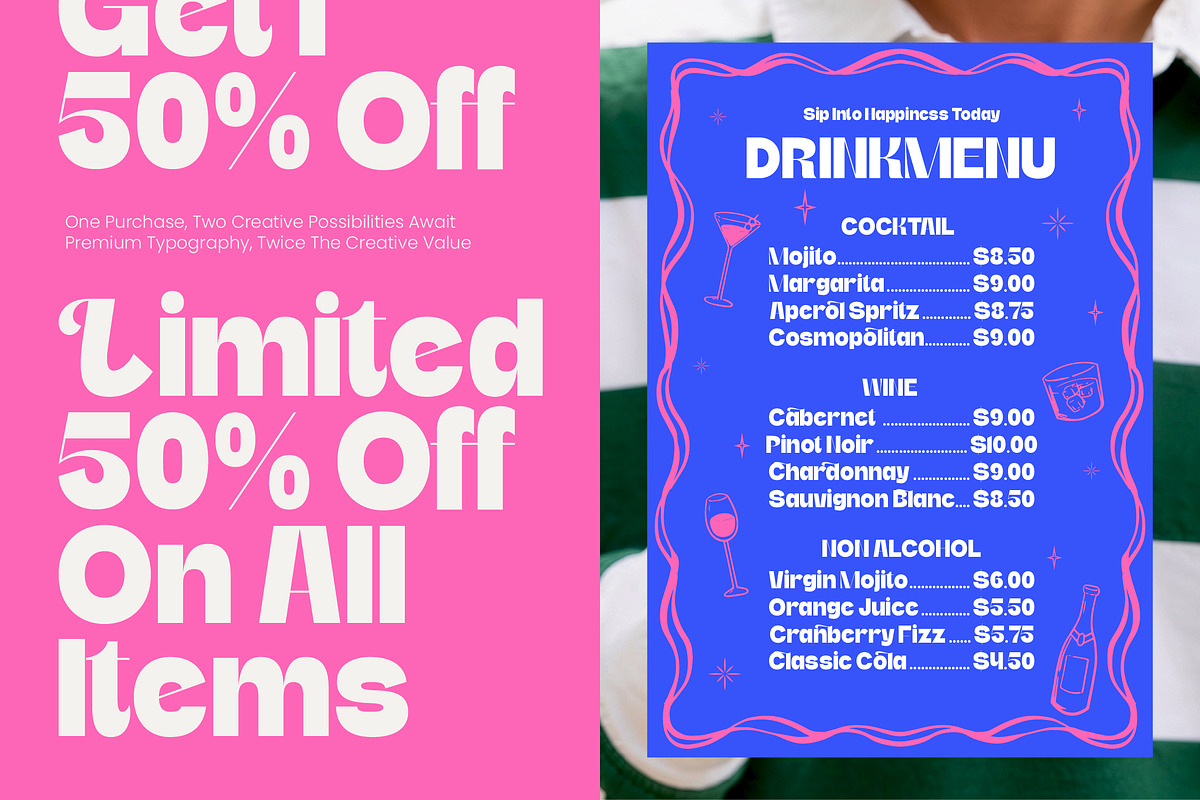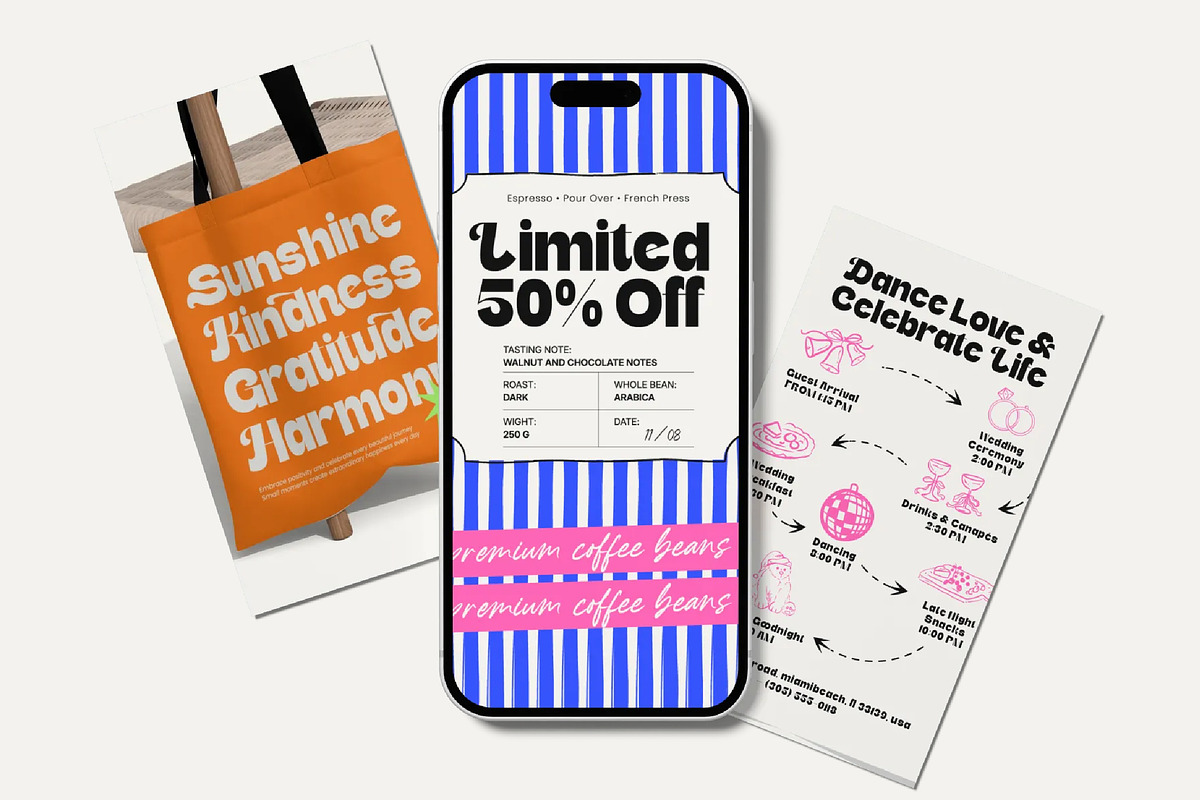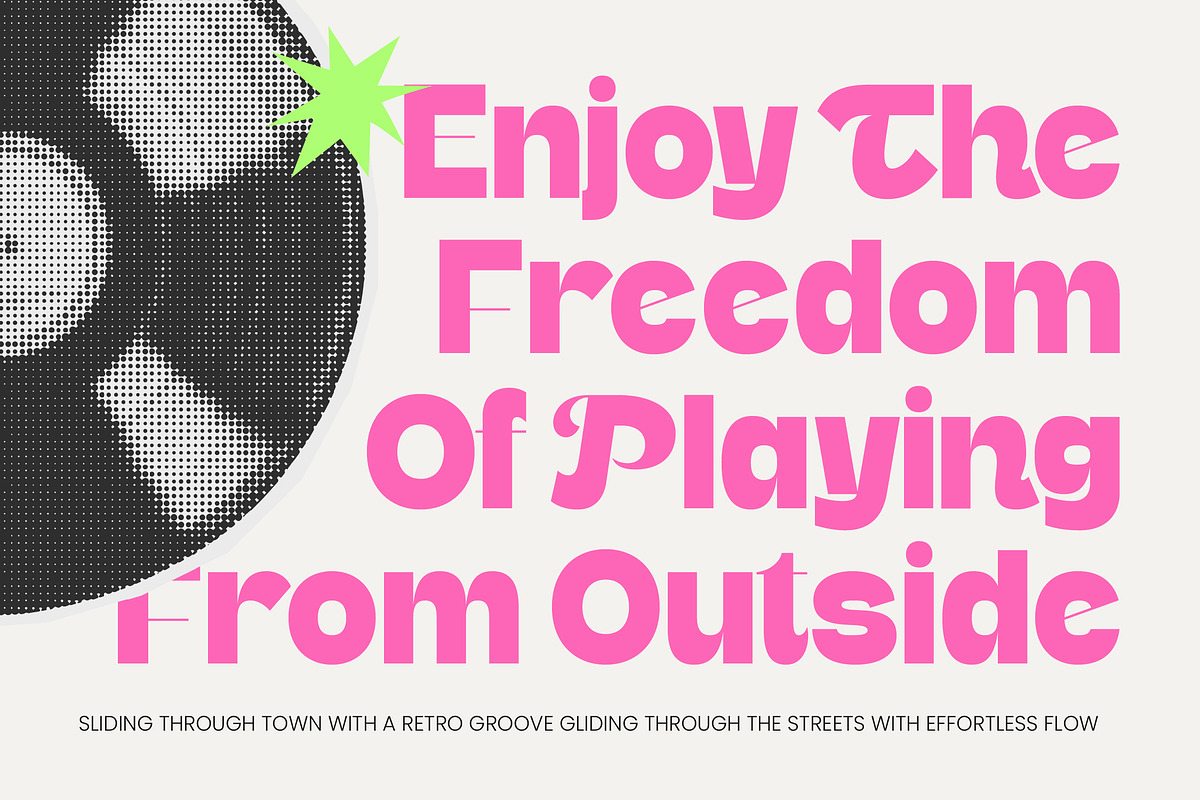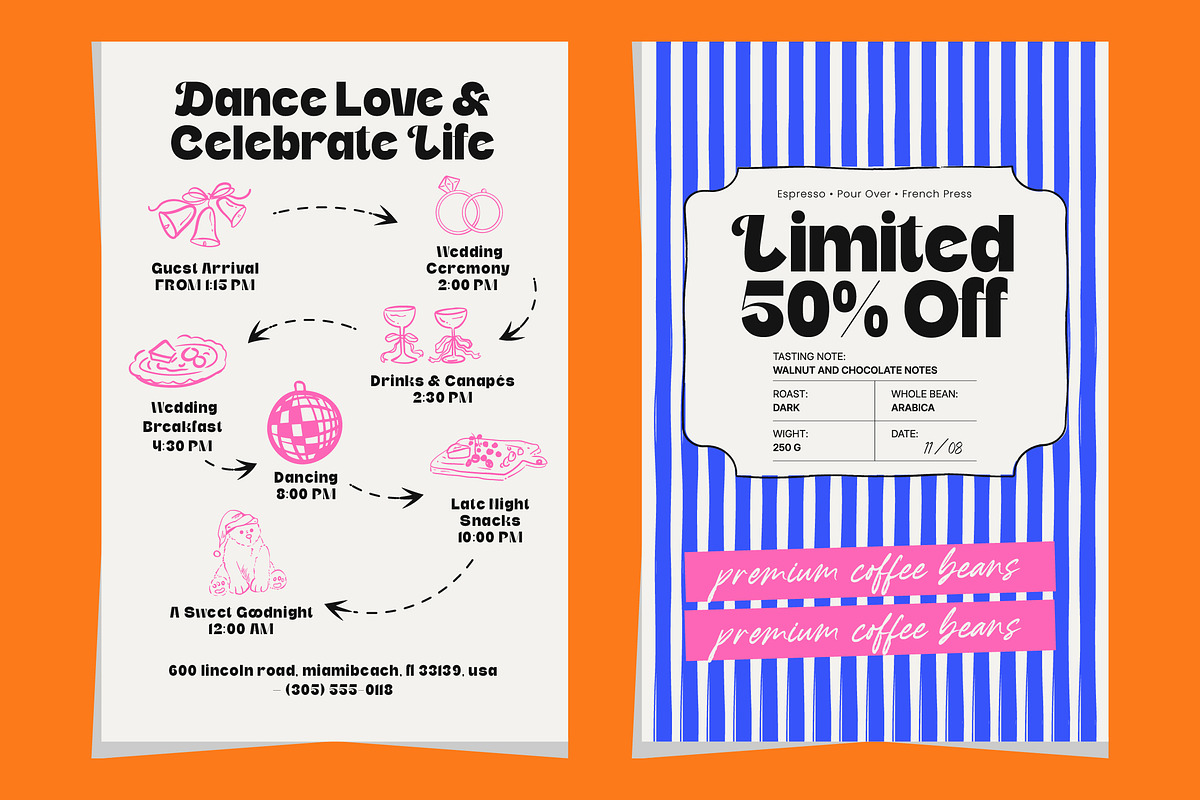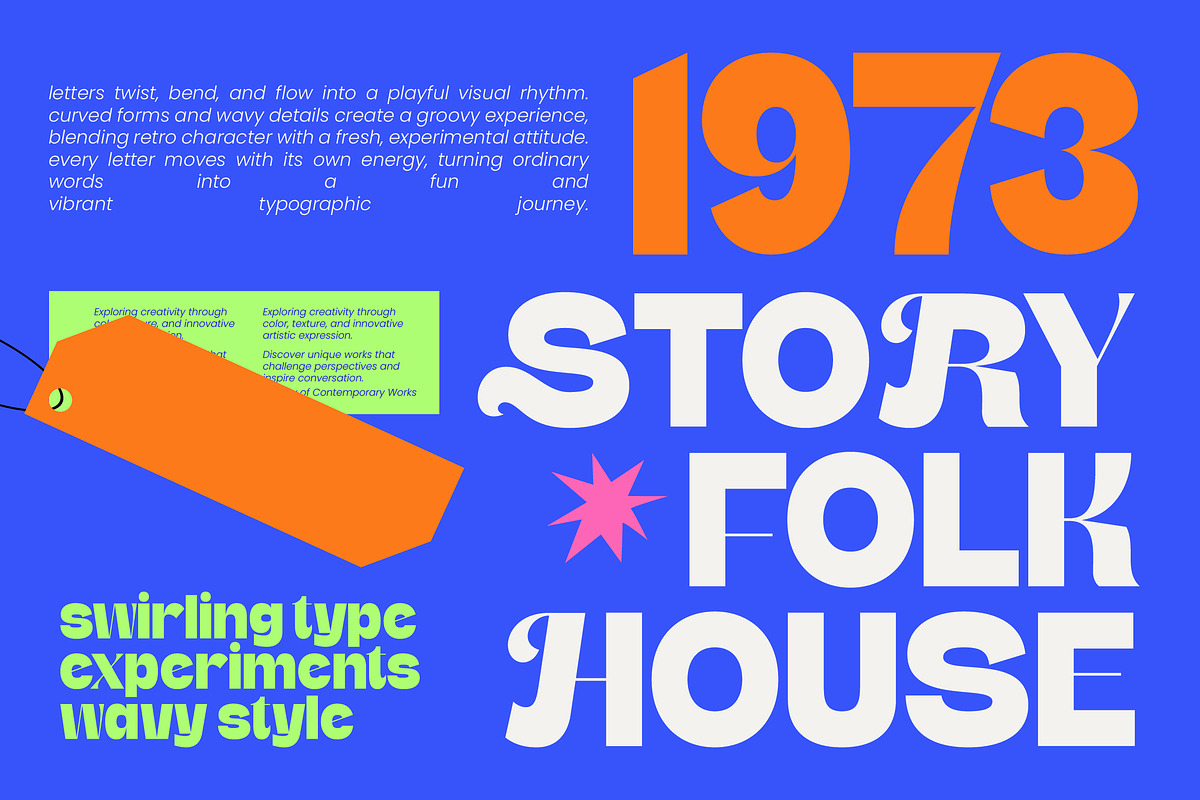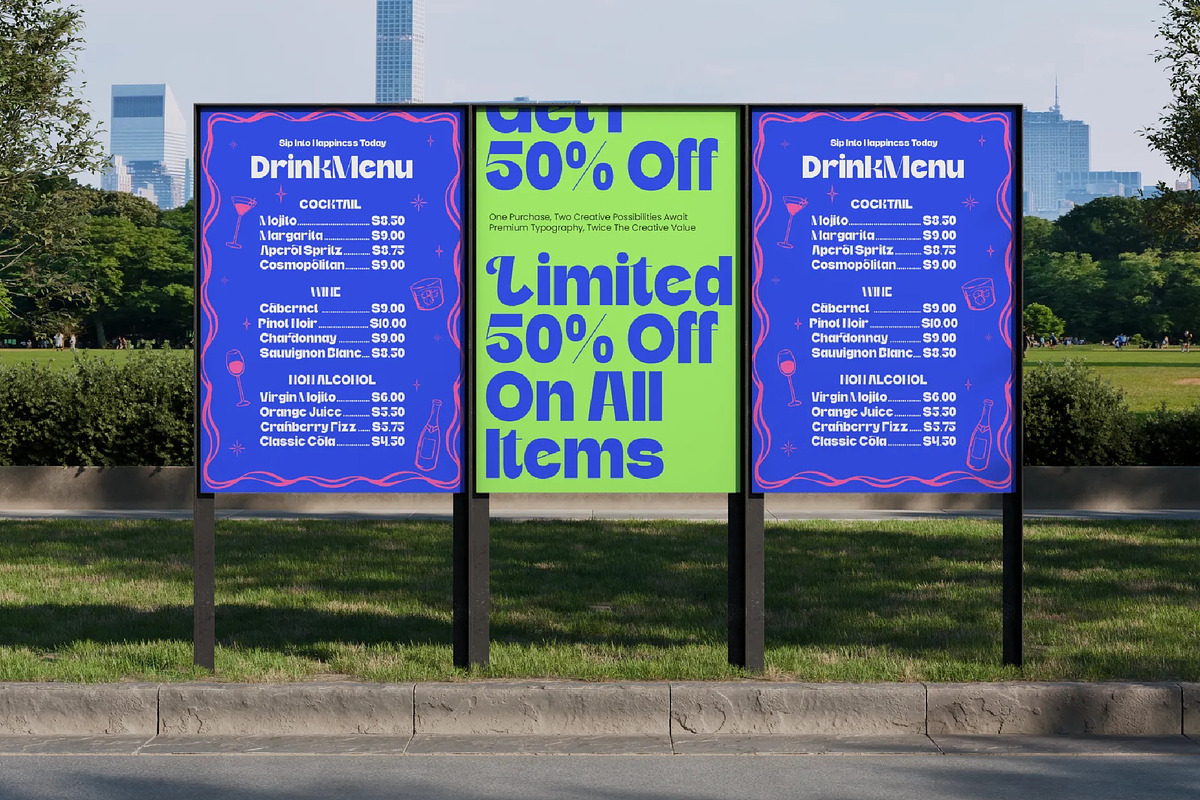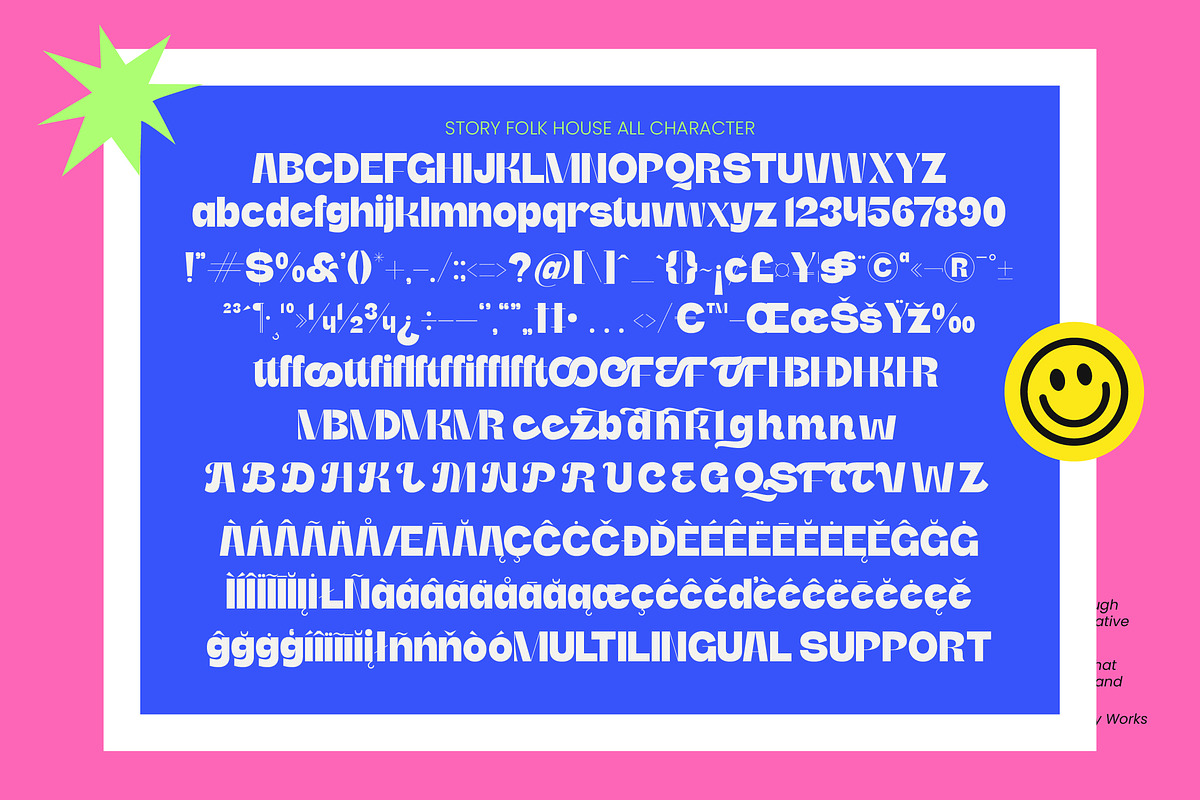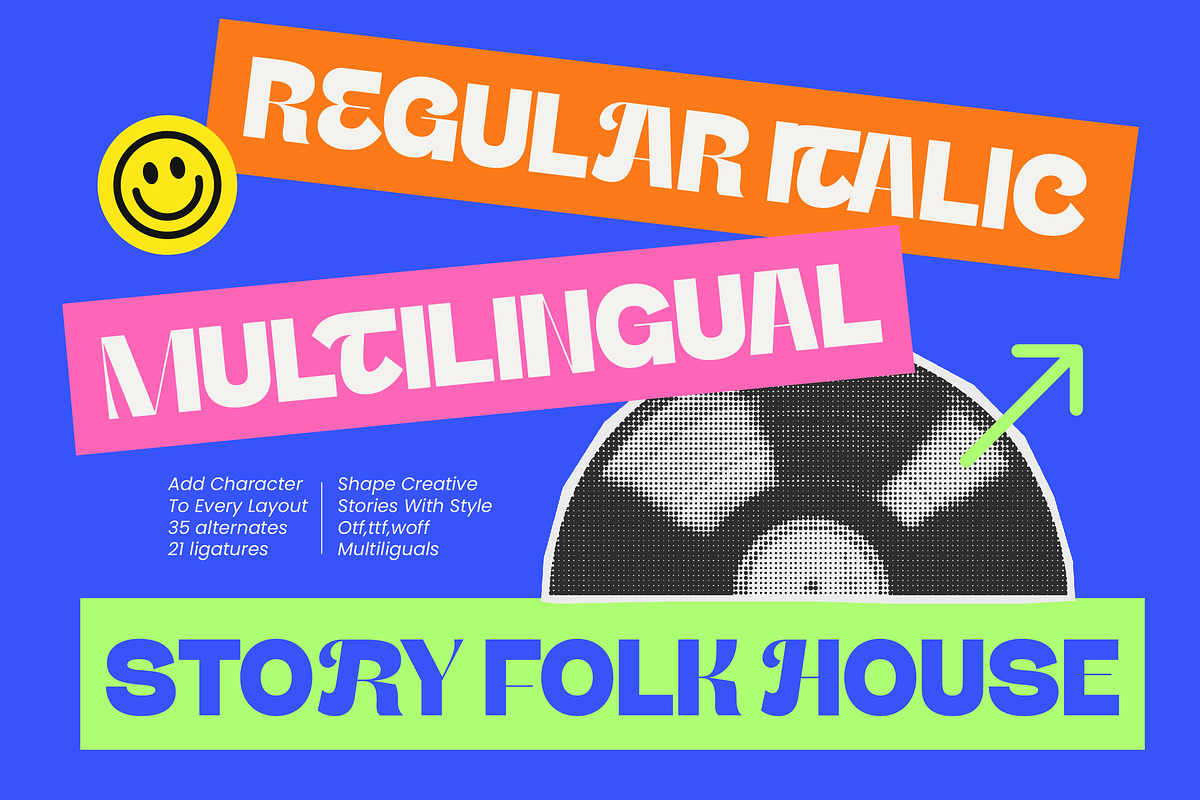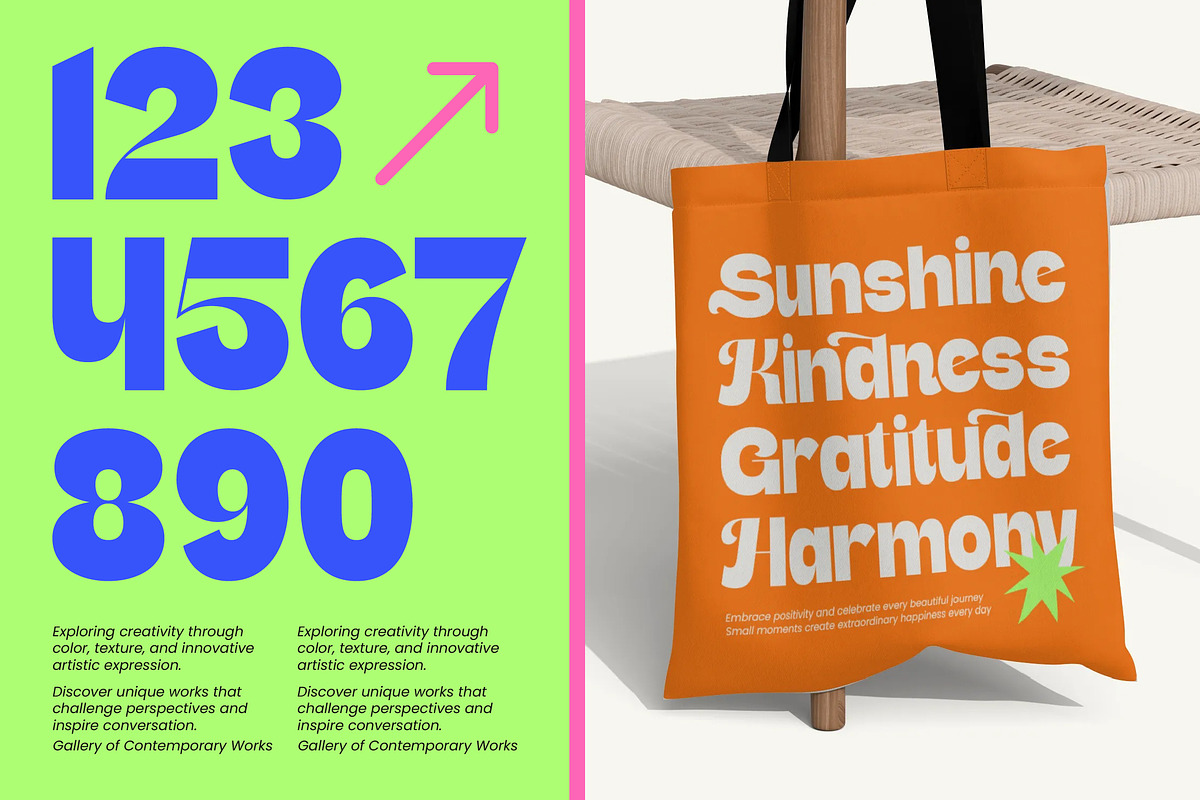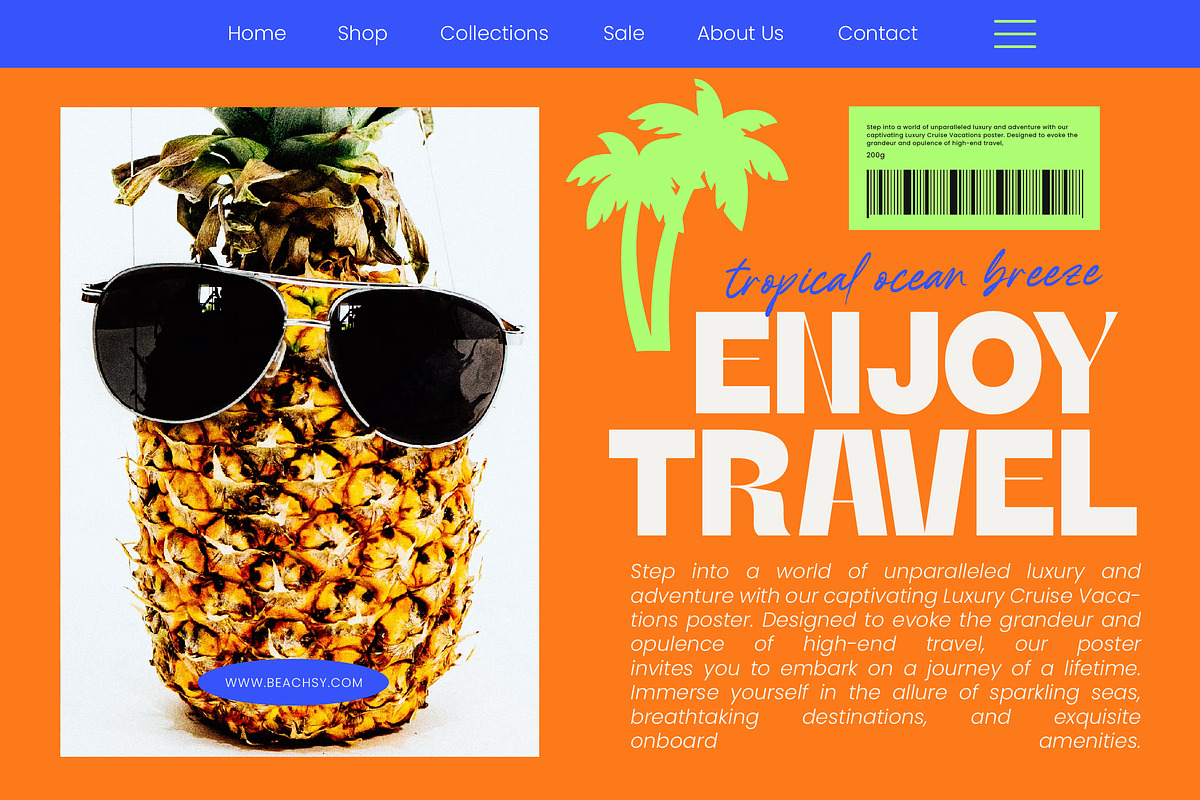
Story Folk House Display Sans
Story Folk House – Experimental Display Sans , Unleash a new era of visual storytelling with Story Folk House – Experimental Display Sans, a typeface that redefines modern expression. Characterized by its bold experimental aesthetic and high-contrast strokes, this font bridges the gap between classic structure and avant-garde flair. It is designed to capture attention instantly, making it the premier choice for designers seeking a contemporary display face with an undeniable presence.
Crafted for creators who demand distinction, Story Folk House – Experimental Display Sans offers an impressive library of 35 unique alternates and 21 custom ligatures. These features allow for a dynamic typographic rhythm, ensuring that no two headlines look the same. Whether you are working in its sturdy regular weight or its fluid italic, this font provides the creative flexibility needed to build a truly bespoke brand identity.
Scale your brand identity with effortless global reach and uncompromising technical precision. With its extensive multilingual support, Story Folk House – Experimental Display Sans adapts seamlessly across global markets, making it incredibly versatile for international projects. This functionality ensures your message remains impactful and cohesive, regardless of the linguistic landscape or the specific geographical requirements of your campaign.
Elevate your creative output across diverse media with a font that is as functional as it is artistic. Story Folk House – Experimental Display Sans is perfect for luxury branding, high-end editorial design, streetwear packaging, and bold digital headlines. Its unique personality excels in environments where visual impact and artistic storytelling are paramount, providing a sophisticated, edgy aesthetic to any commercial or personal portfolio.